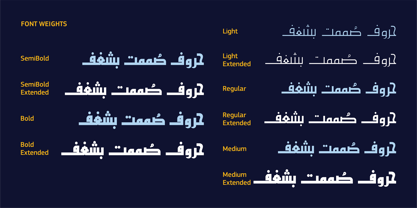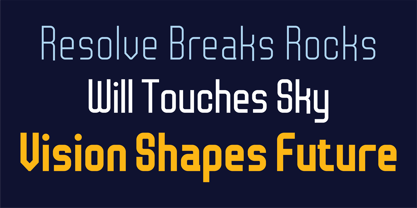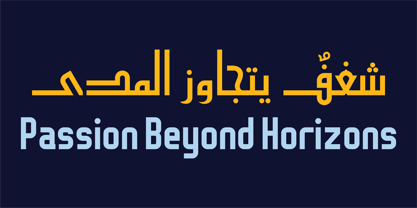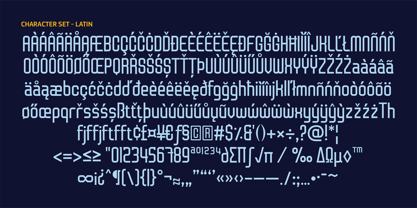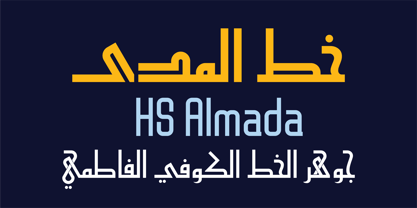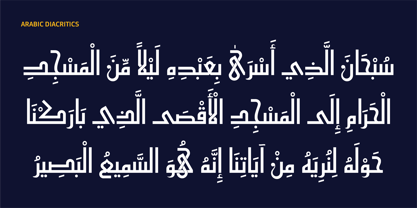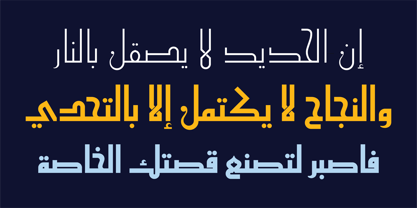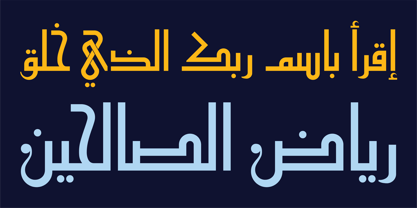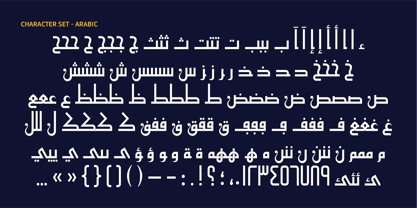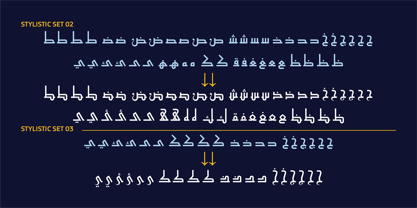
HS Almada
by Hiba Studio
The HS Almada Font Family was designed by Hasan Abu Afash and published by Hiba Studio. HS Almada contains 11 styles and family package options. More about this family
HS Almada - The Essence of Fatimid Kufic
HS Almada is a contemporary Arabic Variable Font inspired by the essence of Fatimid Kufic, one of the most distinctive historical Arabic calligraphic traditions.
Rather than focusing on ornamental details, HS Almada explores the structural foundation of the script, refining its forms to reveal a cleaner, more balanced, and versatile typographic expression.
The typeface is designed as a two-axis Variable Font, offering independent control over Weight and Width. This allows designers to create a wide range of compositions, from elegant editorial layouts to impactful display typography and digital experiences.
With 10 carefully developed static instances, HS Almada provides a complete typographic family suitable for branding, publishing, advertising, packaging, interfaces, and contemporary visual communication.
Rooted in historical Arabic design principles yet shaped for modern applications, HS Almada offers a refined interpretation of Fatimid Kufic for designers seeking authenticity, flexibility, and a distinctive Arabic voice.
Designers: Hasan Abu Afash
Foundry: Hiba Studio